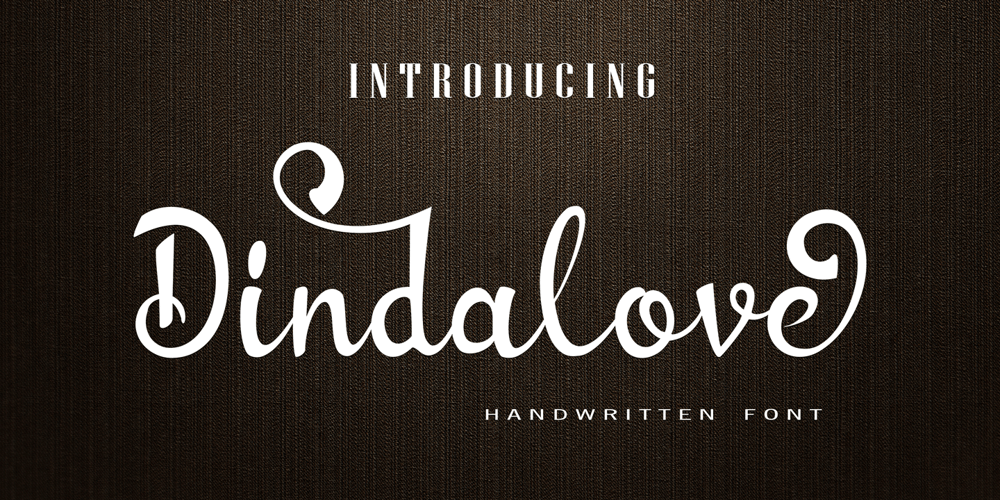
Dindalove
Dindalove font
Dindalove Font Family was designed by Reza Mukhtazar and published by Rezastudio. Dindalove contains 1 styles and family package options. Dindalove is a modern calligraphy typeface.This font is made in a modern style with a very beautiful beginning and ending, elegantly, very casual and suitable for your various design needs Perfect for logo, branding, tittle, social media posts, advertisements, product packaging, product designs, label, photography, watermark, special event, magazine, web design, etc.